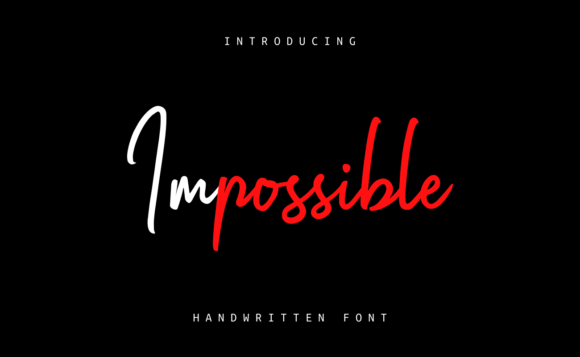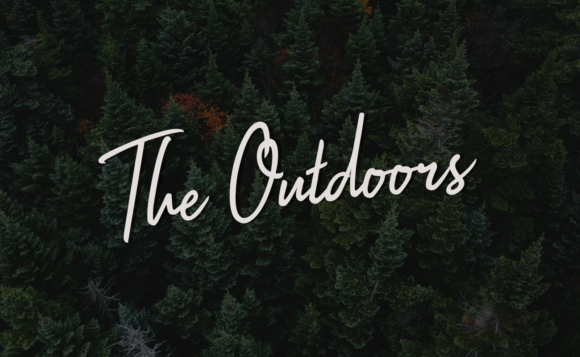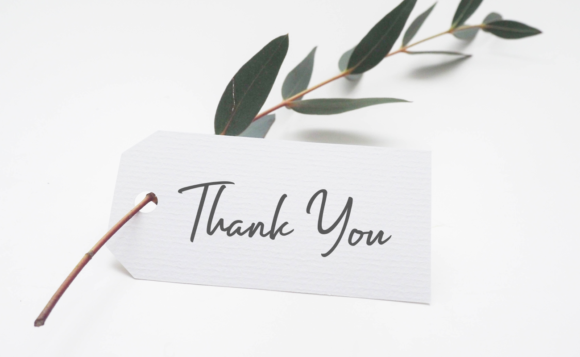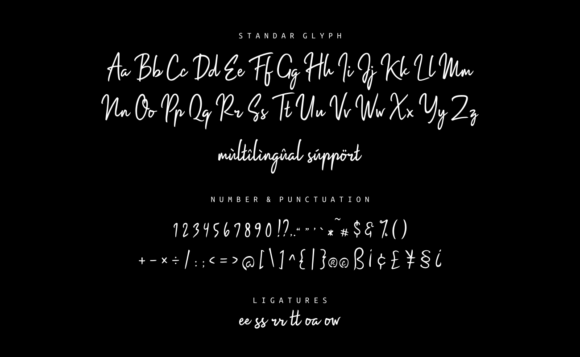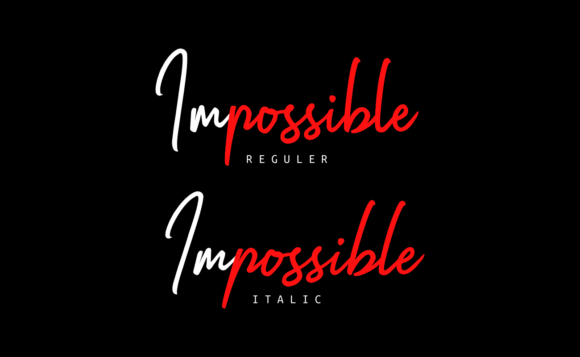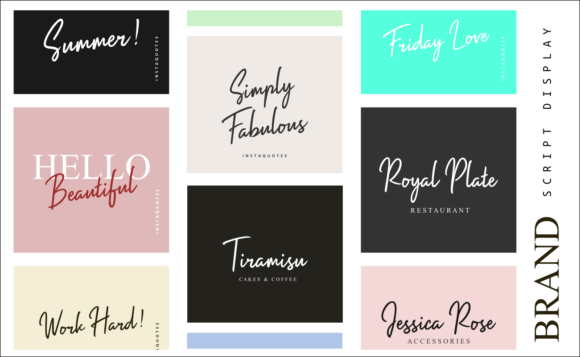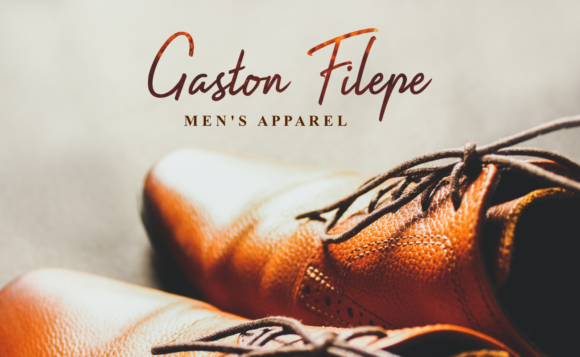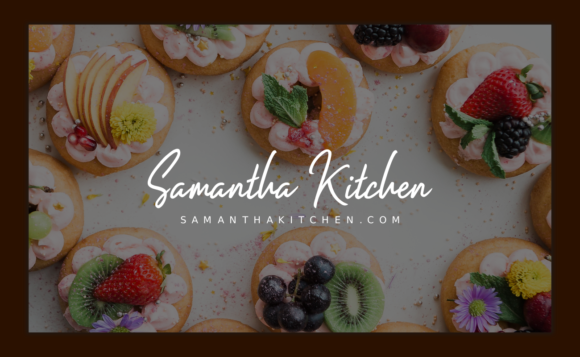
HomeScript FontsImpossible Font Script Fonts Impossible Font FacebookXPinterestWhatsApp Impossible Font Poster 2 Impossible Font Poster 3 Impossible Font Poster 4 Impossible Font Poster 5 Impossible Font Poster 6 Impossible Font Poster 7 Impossible Font Poster 8 Impossible Font Poster 9 Impossible Font Poster 10 Impossible Font Poster 11 Impossible Font Poster 12 About Impossible Font Impossible is a light and charming handwritten font with incredible style. Get inspired by its modern simplicity. DOWNLOAD NOW People also explored Firebug Font Ghoul Font Almond King Font Redhills Font San Diego Duo Font Femina Font Bulletin Font Beauty Hands Font Red Blues Font 287 0 TagsImpossible Font Previous articleMighty FontNext articleEthelyne Font LEAVE A REPLY Cancel reply Comment: Please enter your comment! Name:* Please enter your name here Email:* You have entered an incorrect email address! Please enter your email address here Website: Save my name, email, and website in this browser for the next time I comment. Personal Use Free Goldsaber Personal Use Free Read more about this font Elliane Personal Use Free Read more about this font Machine House Personal Use Free Read more about this font Open Store Personal Use Free Read more about this font BLOG Using Fonts in Digital Marketing: Tips to Strengthen Your Brand Identity In the realm of digital marketing, every visual element plays a crucial role in shaping a brand's identity, and fonts are no exception. The... How to Cut Any Font on Cricut: Convert a Font to SVG (Free) Elegant Wedding Invitation Fonts – Handwritten & Script Fonts Best Fonts for YouTube Videos: Make Your Thumbnails Stand Out